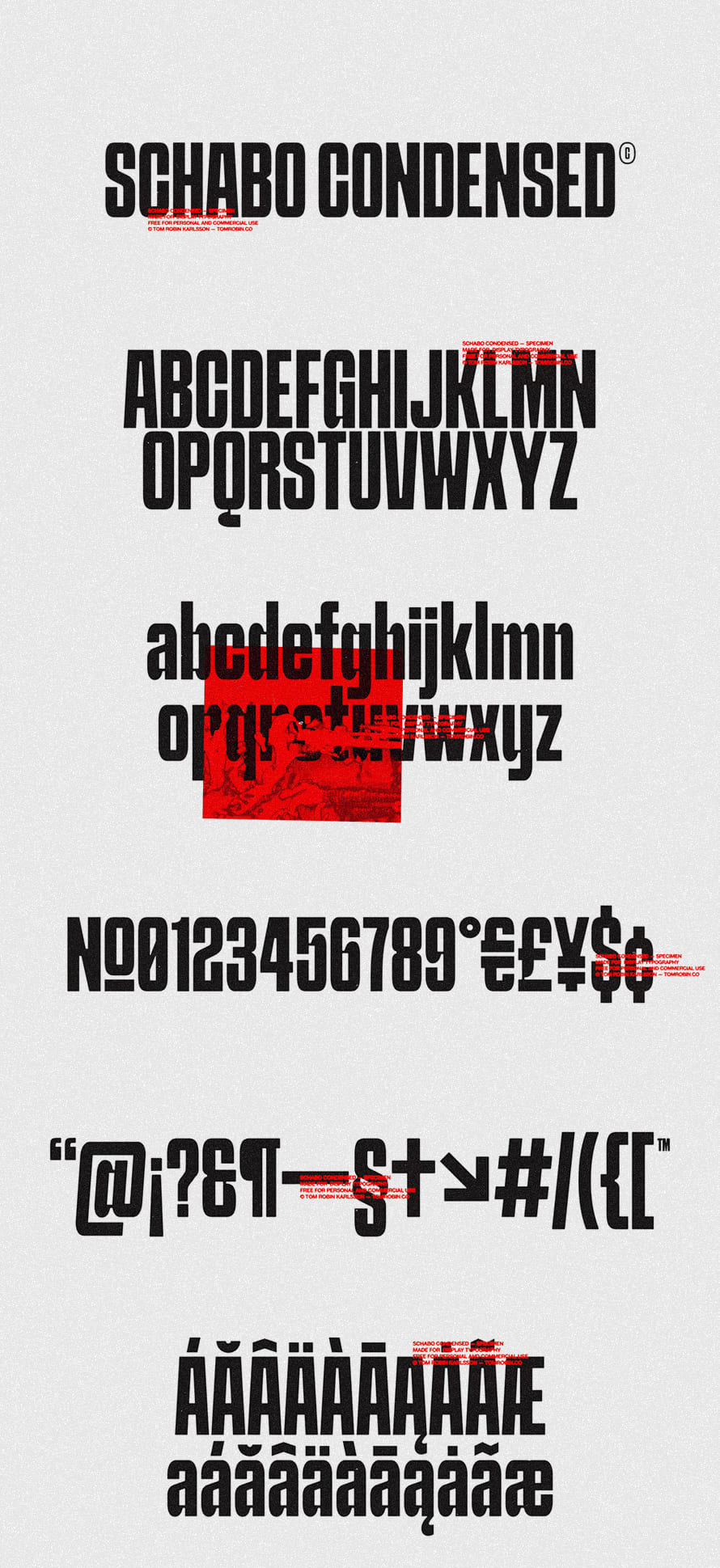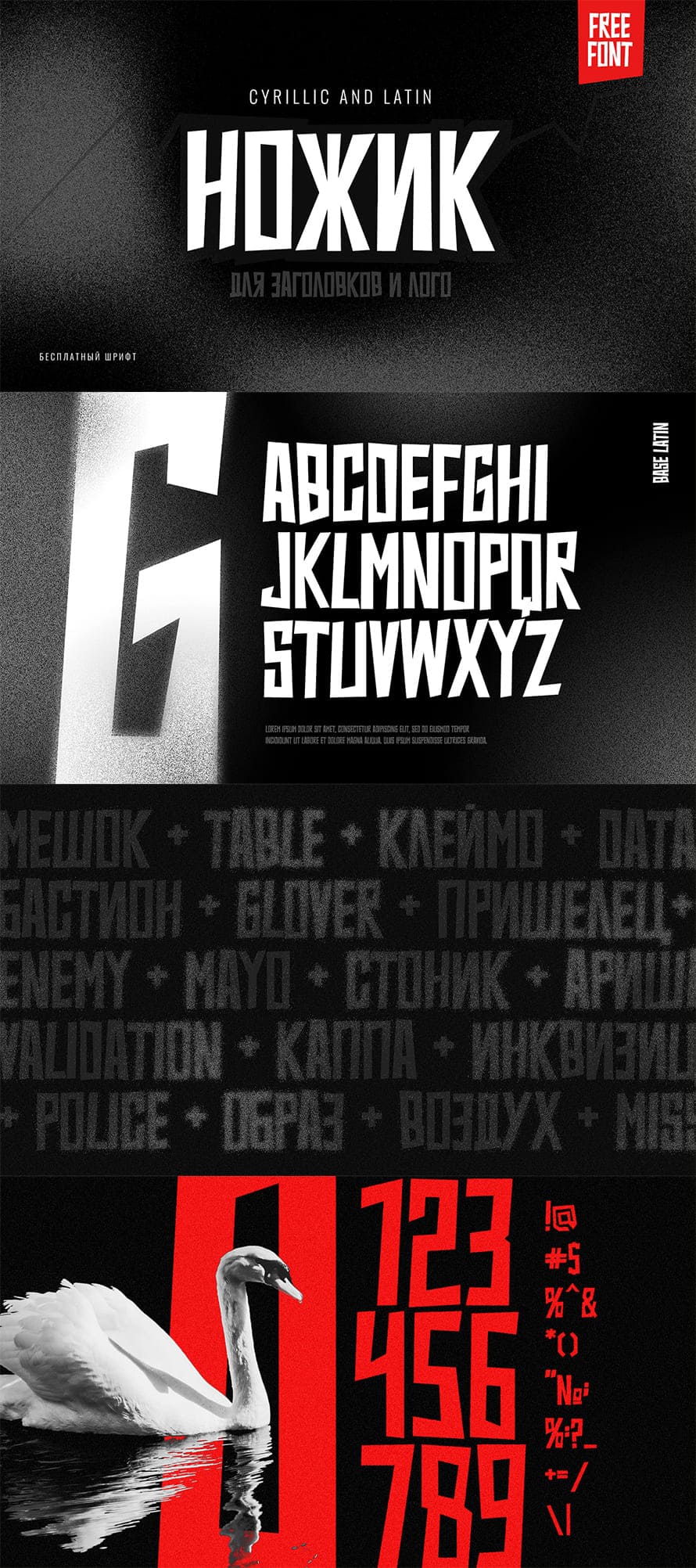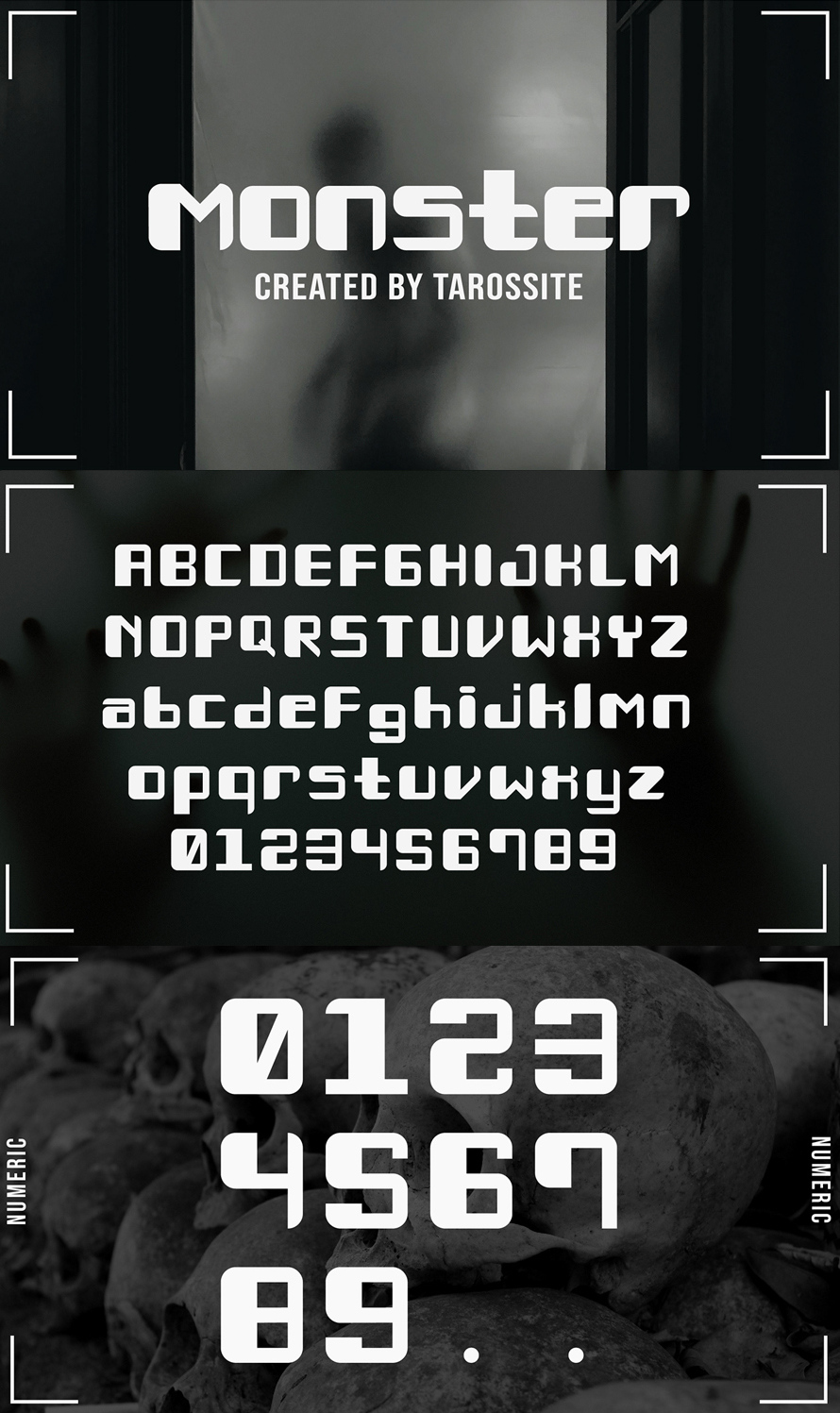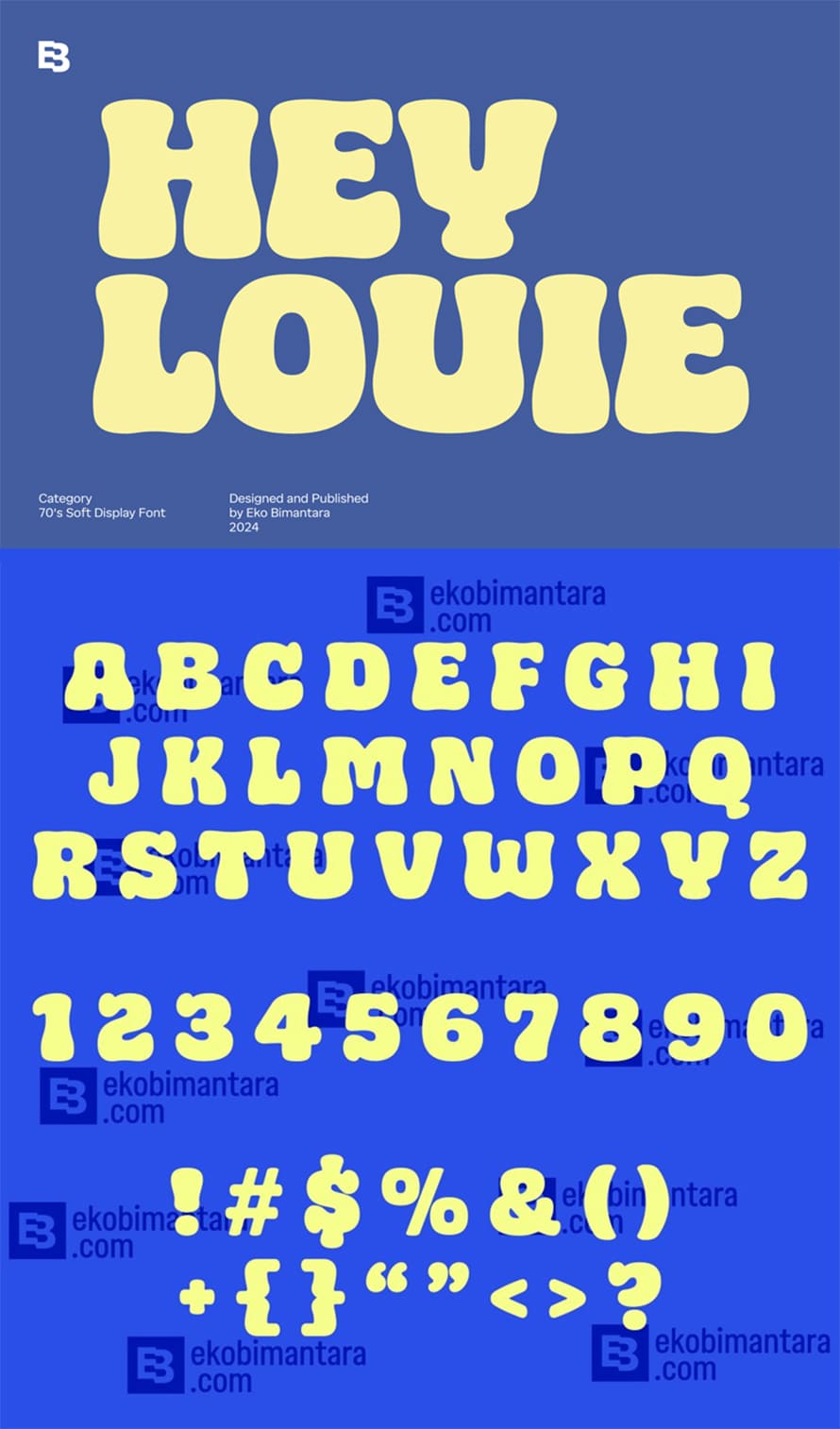
100 Best Free Fonts For 2025
100 Beste Free Fonts Für 2025
Free Vintage Slab Serif Free Font
Doralice Font
Fresh Almond Serif Free Font
Fresh Almond Serif Font Free Font
Em One Free Font
Bros Oskon 90s Font
Onoma Stylish Round Font
King Sans Font
Carmila Modern Serif Free Font
Brogi Free Font
ZT Gatha Free Font
Helvoni Free Font
Stropica Free Font
Canada Free Font
ZT CHINTZY Free Font
Just Sans Free Font
Aquiver Hand Drawn Sans Serif Free Font
Chopin Free Font
Adrianna Gabrielle Free Font
Neue Ralewe Serif Font
Nauman Sans Serif Free Font
Aeroboost Free Font